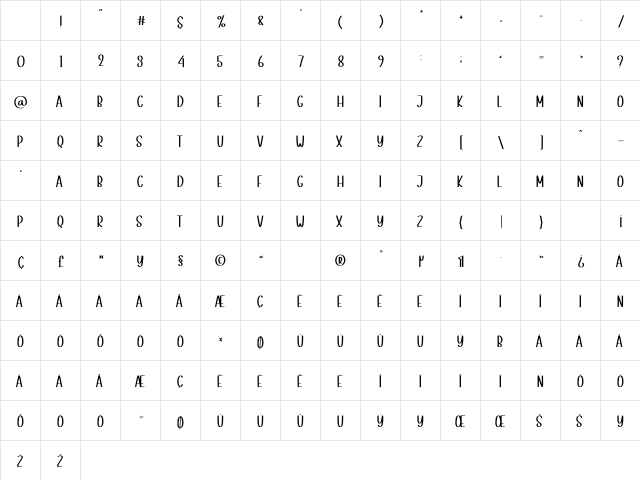
Complete Winter Activities Regular glyph index. Displaying only characters natively supported by Winter Activities Regular font.
Winter Activities is a composed and adaptable typeface that performs quietly and consistently across a wide range of design contexts.